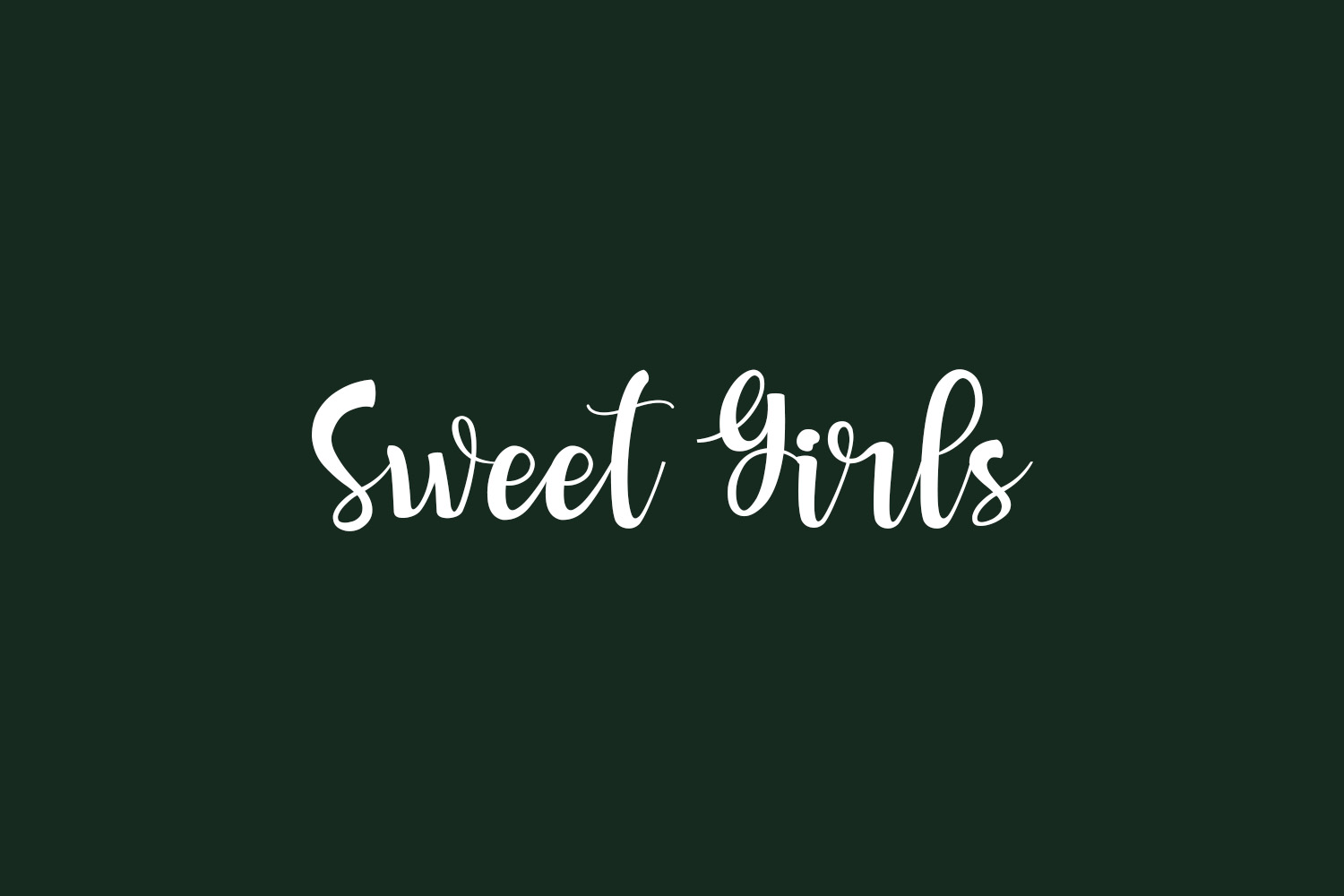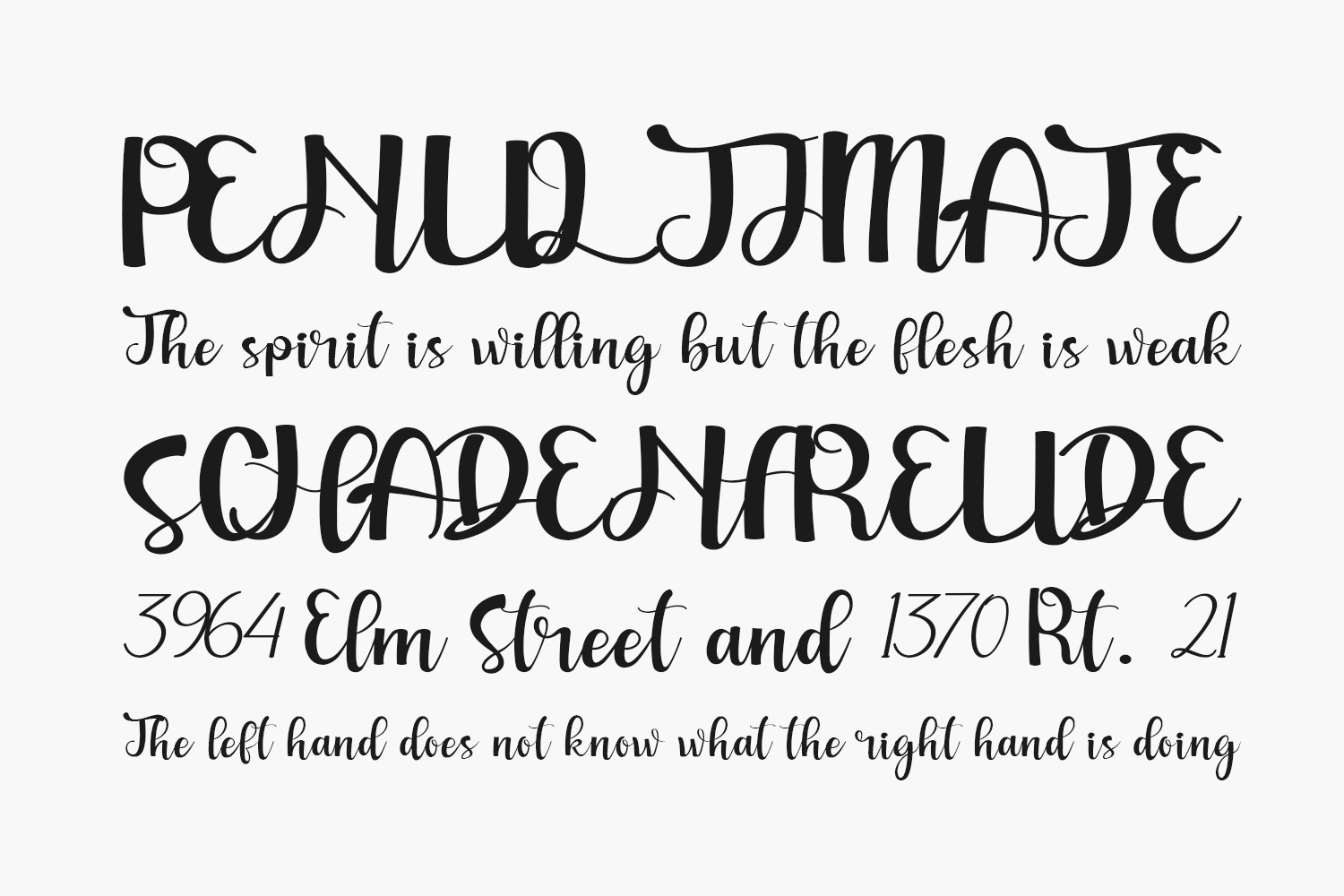
Sweet Girls Free Font is a sugary sweet font, ideal for girly themes and more! This font comes with cute icons so your designs can easily have a completed look and feel. Sweet Girls Free Font was designed by Haksen Studio is a demo and free for personal use only. Please purchase the full version for commercial use.